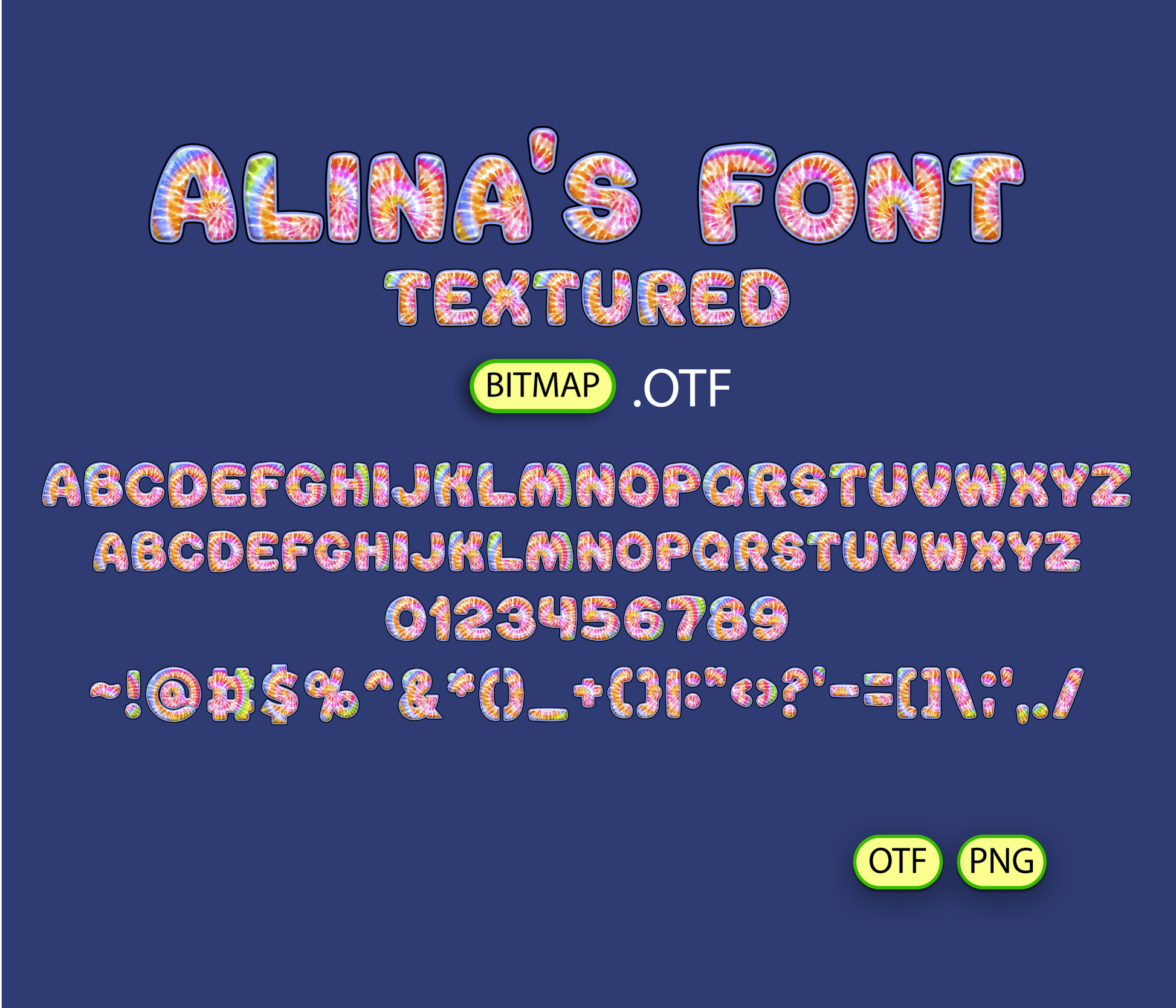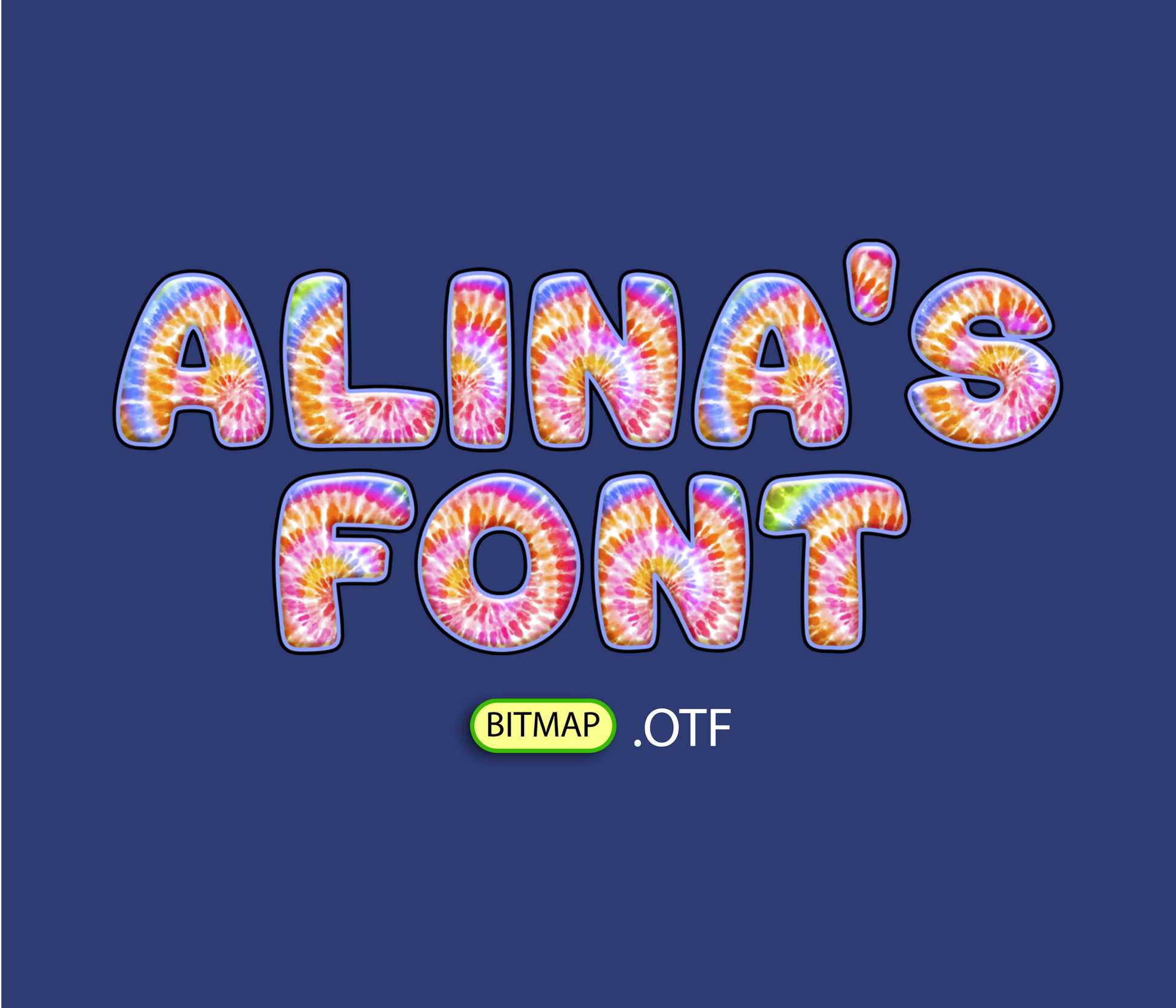
FREE Rainbow Spiral Pattern Font
Rainbow Spiral Typography Collection Psychedelic
Immerse yourself in the kaleidoscopic universe of counterculture artistry with our Rainbow Spiral Typography Collection, embodying the essence of liberation and chromatic rebellion. Tailored for concert promoters, vintage retailers, album designers, and artistic creators, this lettering style delivers the euphoric, experimental atmosphere of woodstock-era expression to your creative work. Design mesmerizing displays, bohemian merchandise, or web materials with the fluid, multi-hued magic of acid-wash aesthetics and flower power movements.
Our Rainbow Spiral Typography showcases undulating, vortex-themed contours and vibrant letterforms that mirror the liberated yet unified essence of peace-loving artistic communities.
- Music Industry: Generate captivating branding, concert posters, and marketing assets for folk festivals, jam bands, and alternative music venues
- Vintage Commerce: Excellent for retro storefronts, nostalgic packaging, and merchandise celebrating the flower child movement and bohemian aesthetics
- Web Design: Improve online platforms, email campaigns, and digital posts with colorful typography and imagery that communicate artistic freedom and good vibes
- Creative Endeavors: Perfect for canvas art, fabric printing, and promotional content for alternative lifestyle brands and artistic collectives
- Hobby Crafting: Incorporate groovy atmosphere into personalized stationery, handcraft ventures, and room decorations influenced by spiral patterns and rainbow motifs